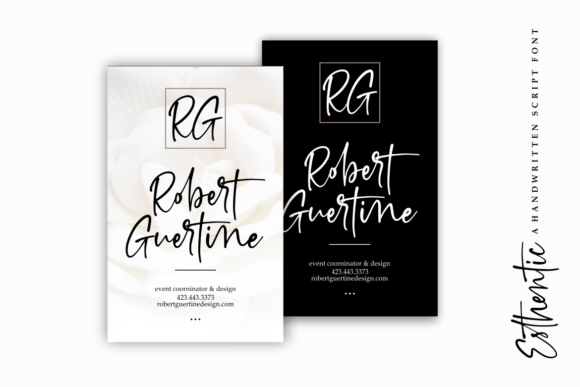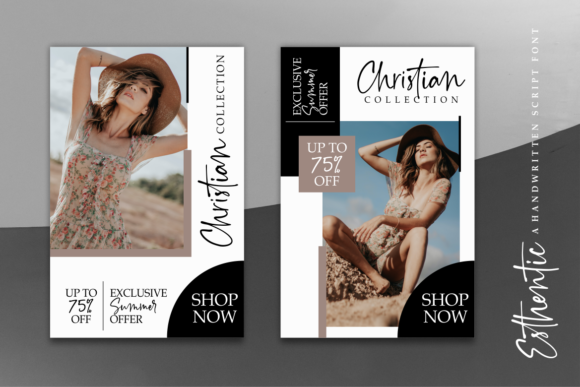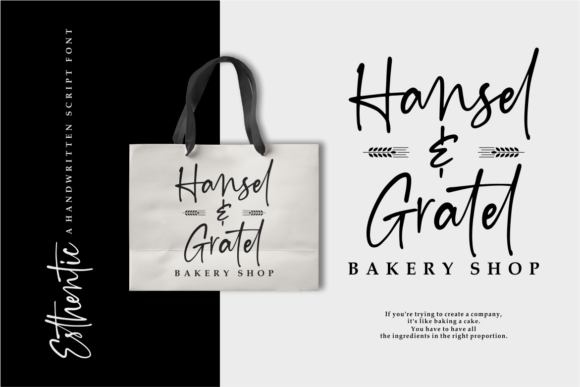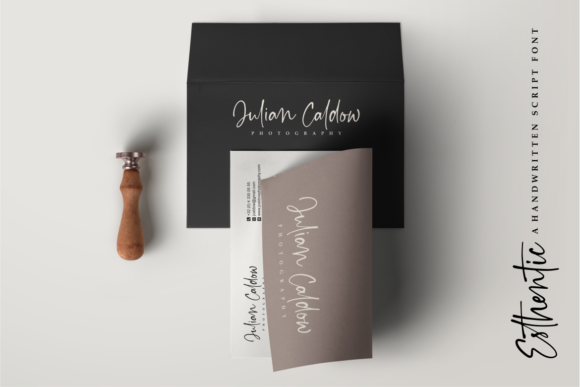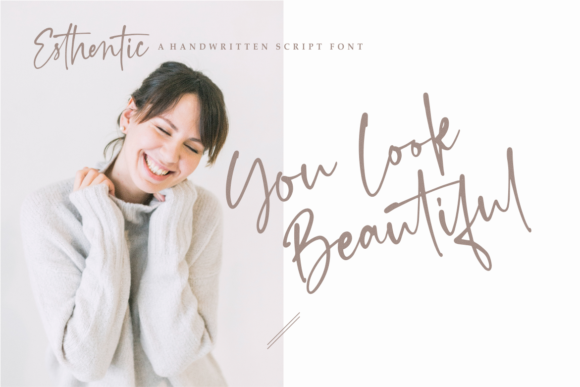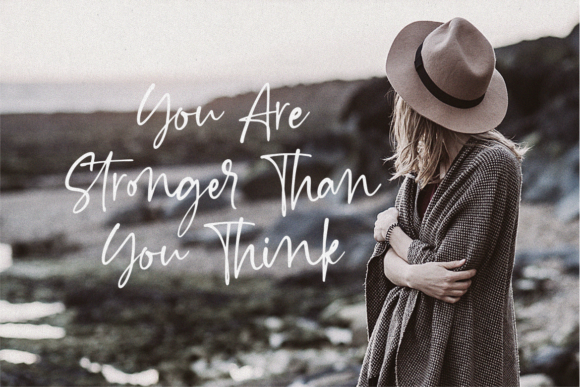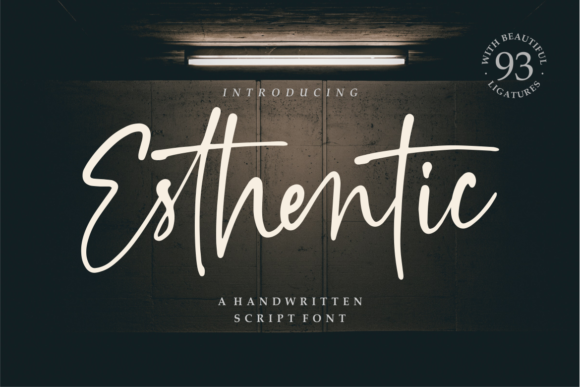
Introducing Esthentic Font: The Ultimate Handwritten Font for Creative Projects
Are you a designer, crafty person, or simply someone who appreciates beautiful typography? Look no further! We’re excited to introduce Esthentic Font, a lovely and flowing handwritten font that’s sure to capture your heart. With its incredibly versatile style, Esthentic Font is perfect for creating stunning wedding invitations, beautiful stationery art, eye-catching social media posts, and so much more!
The Beauty of Esthentic Font
Esthentic Font is a true gem, boasting a unique and elegant handwritten style that’s both modern and timeless. Its flowing curves and delicate lines make it perfect for adding a touch of sophistication and whimsy to any design project. Whether you’re creating a romantic wedding invitation or a fun social media post, Esthentic Font is sure to make your design stand out from the crowd.
What Makes Esthentic Font So Versatile?
One of the things that sets Esthentic Font apart is its incredible versatility. This font can be used for a wide range of design projects, from:
- Signs and banners
Whether you’re creating a formal or informal design, Esthentic Font adapts seamlessly to any style or theme. Its flexibility makes it an excellent addition to any designer’s font collection.
Why Designers and Crafters Love Esthentic Font
So, what makes Esthentic Font a favorite among designers and crafters? Here are just a few reasons:
- Elegant and sophisticated: Esthentic Font adds a touch of elegance and sophistication to any design project.
- Easy to read: Despite its flowing and cursive style, Esthentic Font is surprisingly easy to read, making it perfect for body text and headlines.
- Highly customizable: Esthentic Font comes with a range of variations and ligatures, allowing you to customize your design to suit your style.
- Unique and distinctive: Esthentic Font has a unique and distinctive style that sets it apart from other fonts, ensuring your design stands out from the crowd.
Tips for Using Esthentic Font in Your Designs
To get the most out of Esthentic Font, here are a few tips to keep in mind:
- Experiment with different sizes and colors: Esthentic Font looks great in a range of sizes and colors, so don’t be afraid to experiment and find the perfect combination for your design.
- Pair it with other fonts: Esthentic Font pairs beautifully with other fonts, so try combining it with a bold or sans-serif font for added contrast.
- Use it for headlines and titles: Esthentic Font is perfect for headlines and titles, but don’t be afraid to use it for body text too.
In conclusion, Esthentic Font is a beautiful and versatile handwritten font that’s perfect for designers, crafters, and anyone who appreciates stunning typography. With its elegant and sophisticated style, Esthentic Font is sure to become a favorite in your font collection. So why wait? Download Esthentic Font today and start creating gorgeous wedding invitations, beautiful stationery art, eye-catching social media posts, and more!